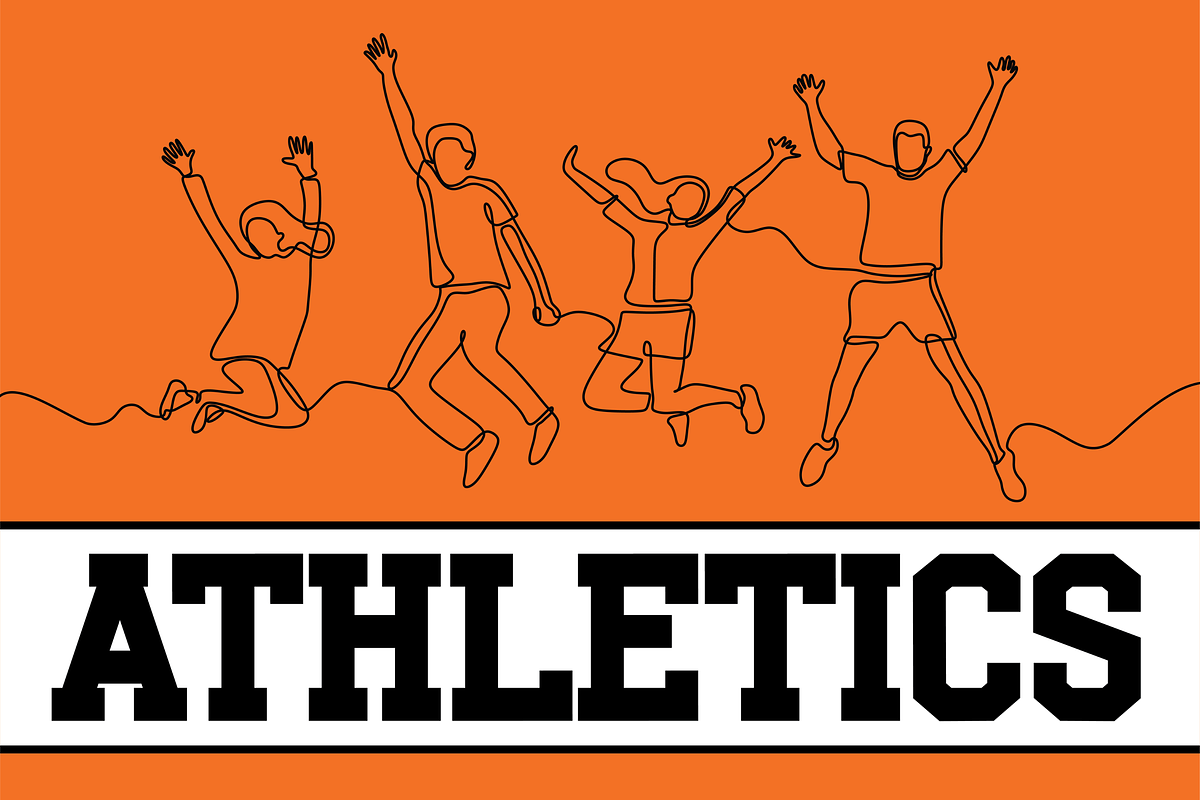
Athletics
Athletics Font is a dynamic and strong serif font, perfect for sporting logos and designs. Its bold strokes deliver a striking visual impact, adding a modern edge to any design. For athletes and designers alike, Athlete Font will make your mark.